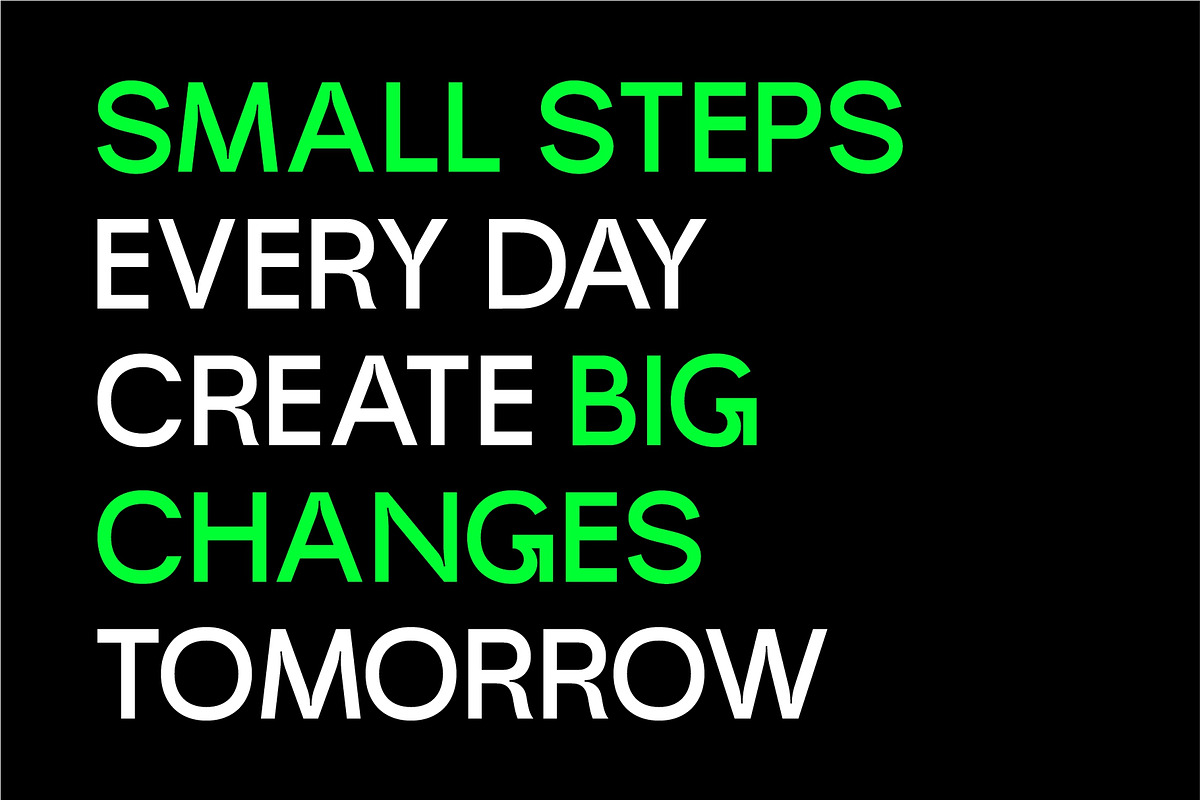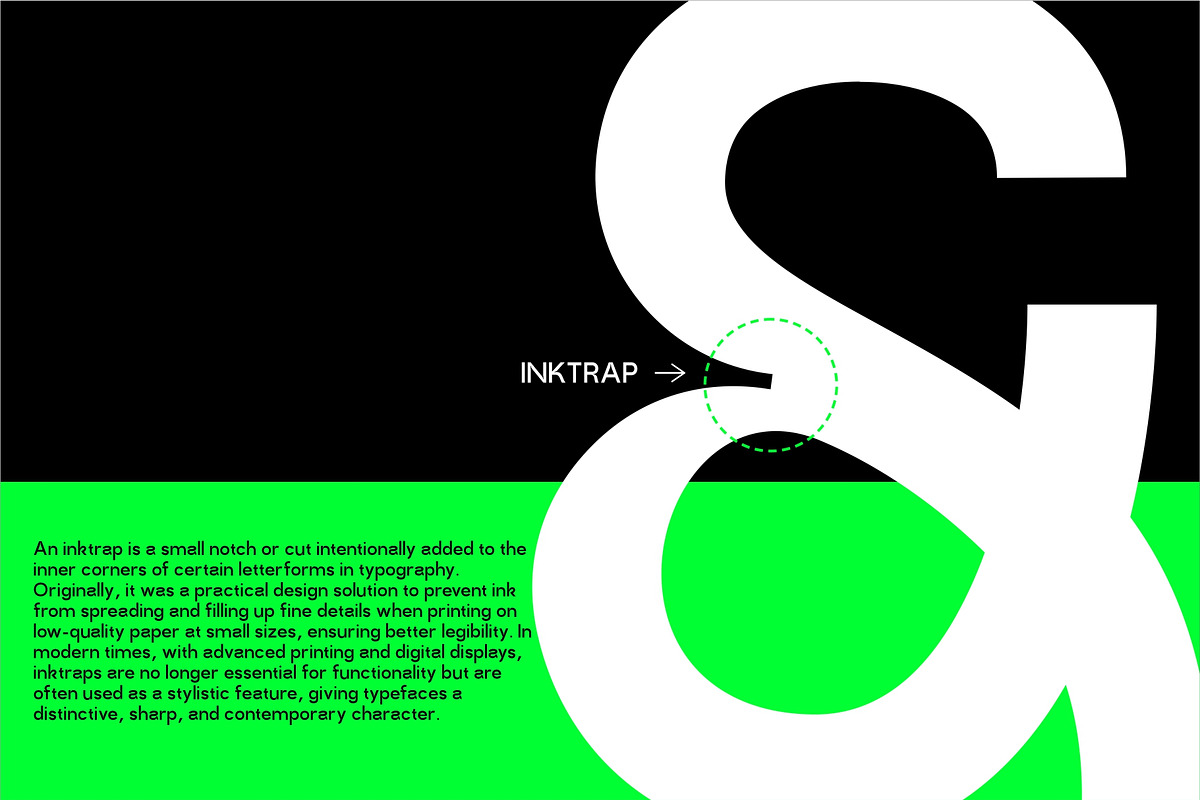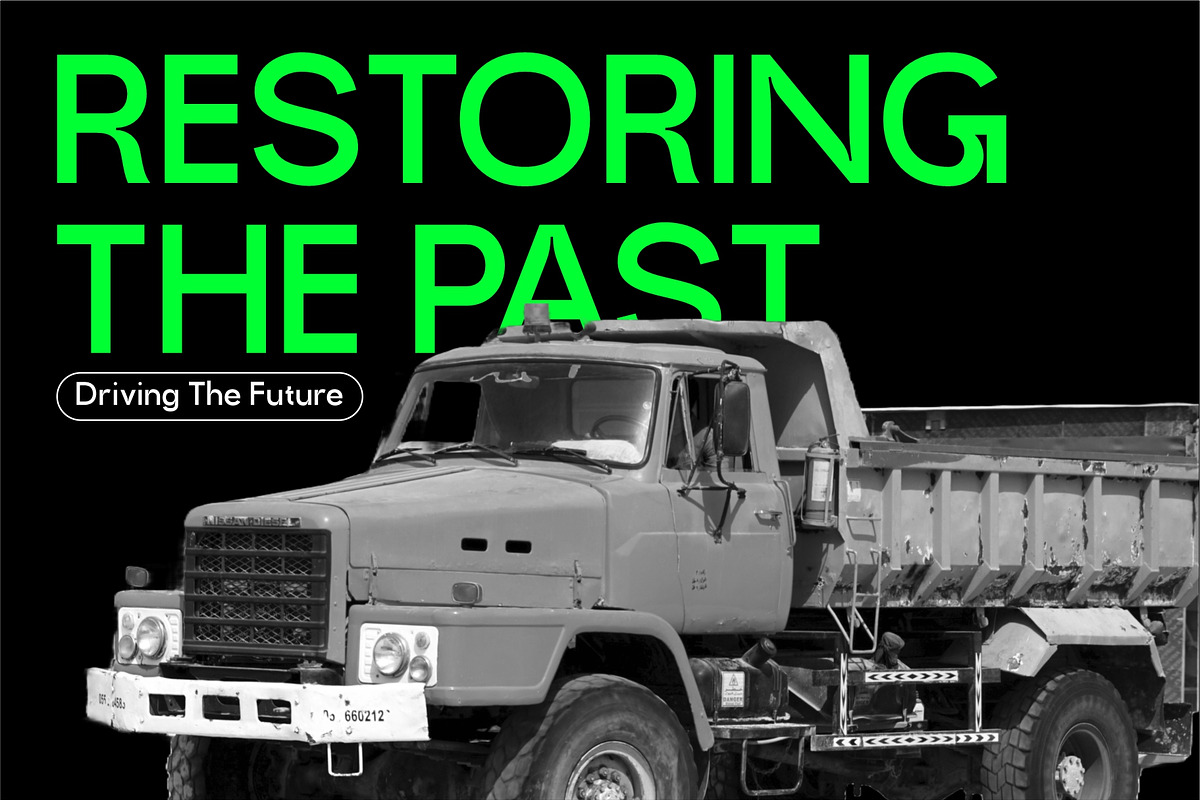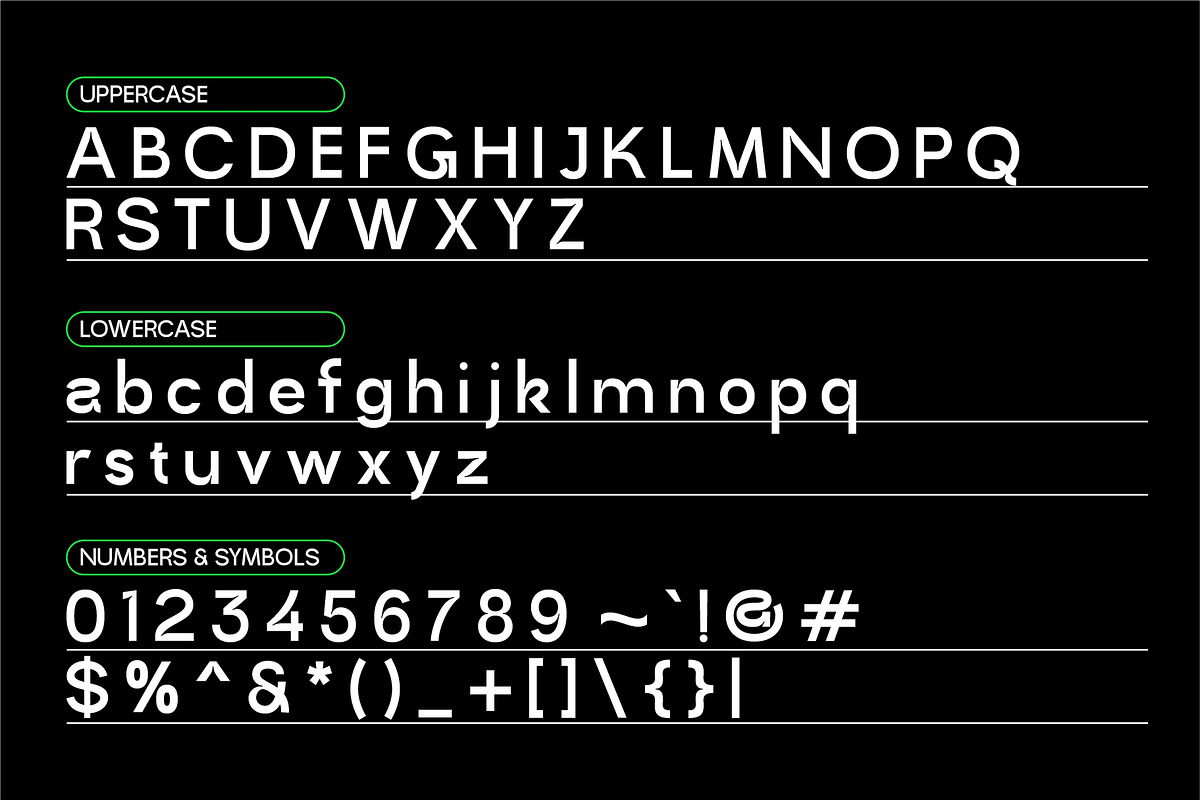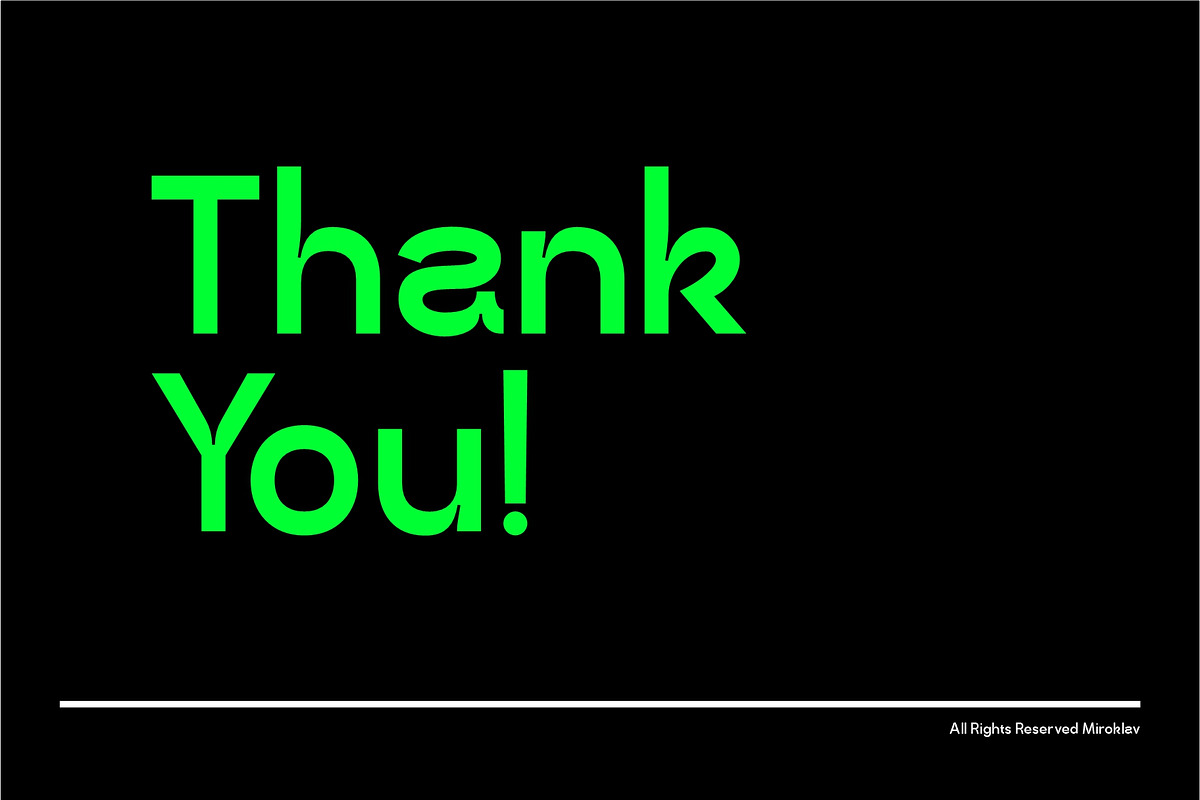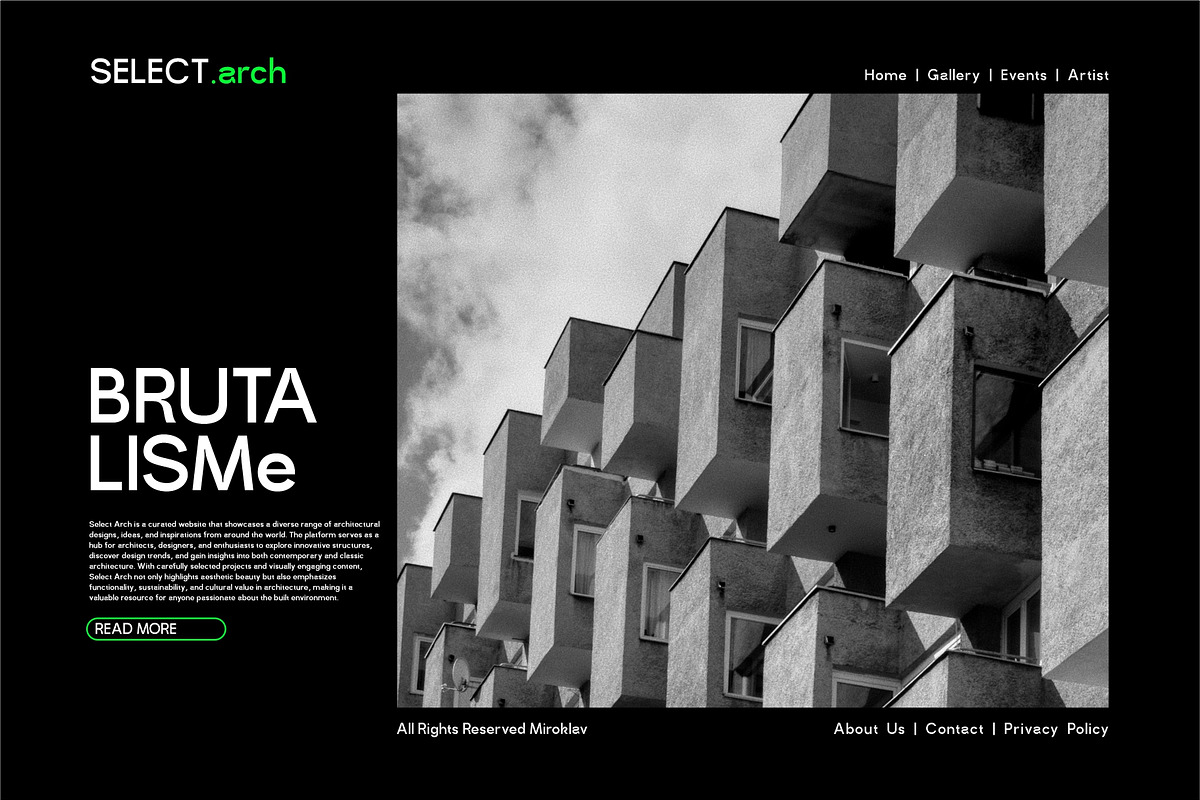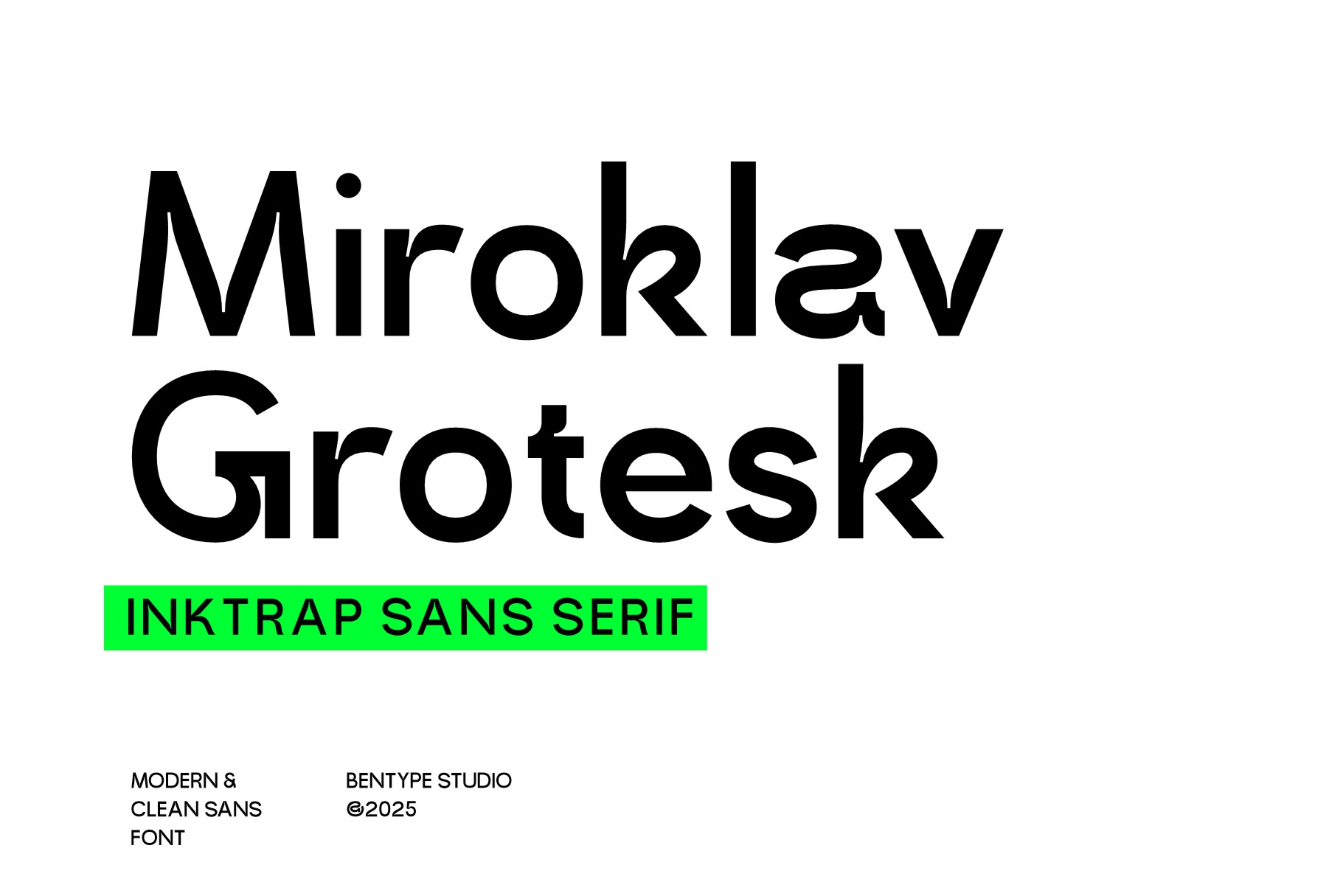
Miroklav Grotesk - Inktrap Sans Font
Miroklav Grotesk is a Inktrap sans display font with several unique stems and joins. Despite their limitations in character set and resolution, pixel fonts remain popular among designers for their distinct visual appeal and nostalgic charm, with a condensed style this font is suitable for your design needs for displays, headlines, banners etc.
- Upper Case & Lower Case